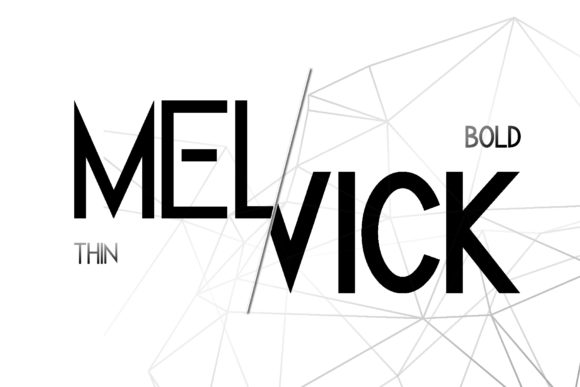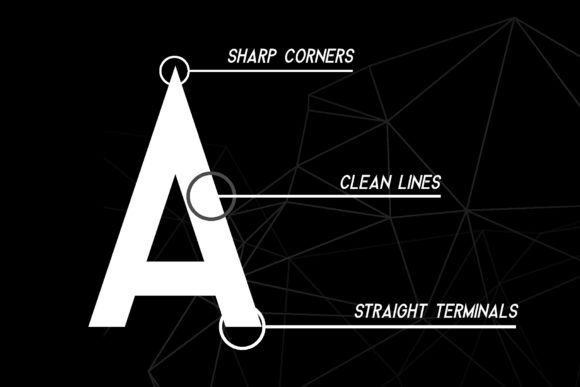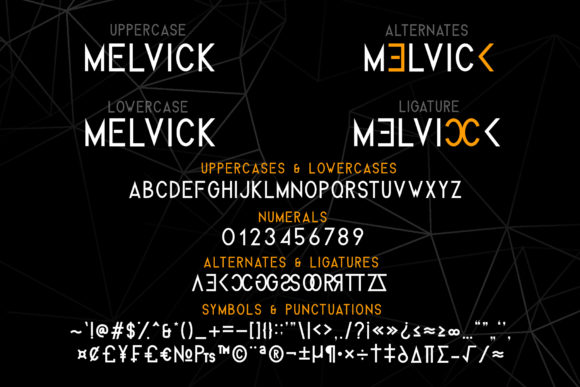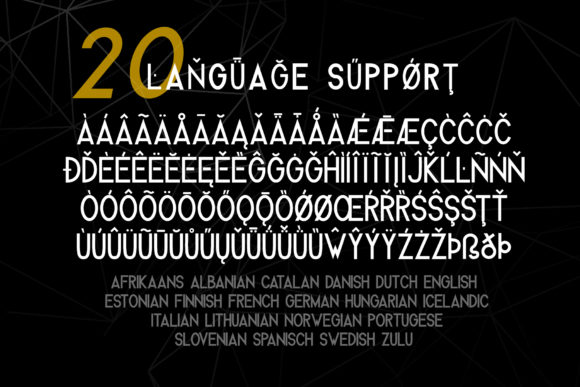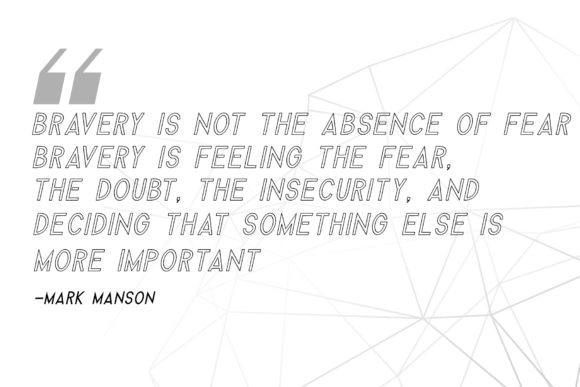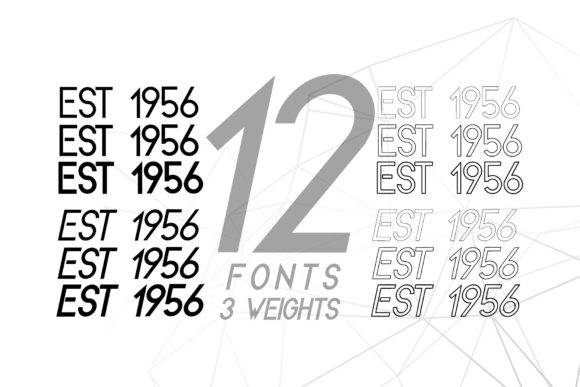
Introduction to Melvick Family Font
The Melvick is a huge sans font family.
Included are 12 fonts in 3 weights, all in caps with a solid and outlined style It has clean, simple and strong characters which are perfect for displays, logos, branding, magazines, headers, t-shirts, printing, posters, advertisements, flyers and much more.